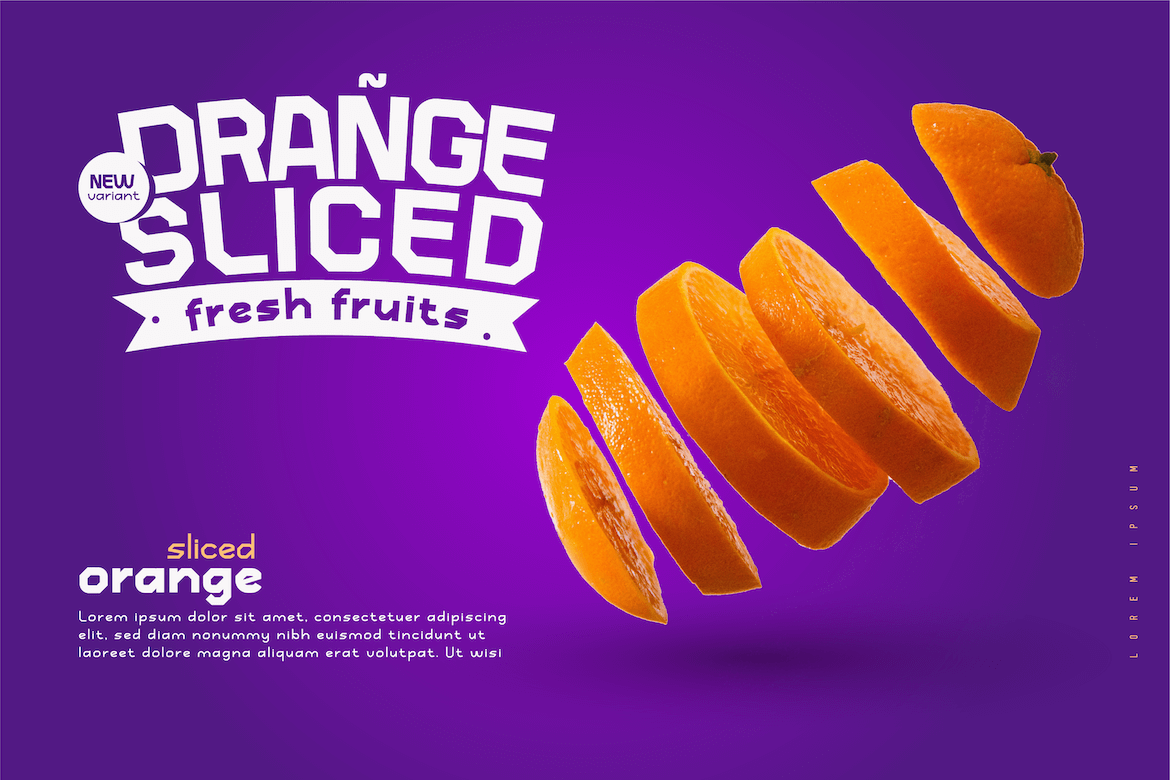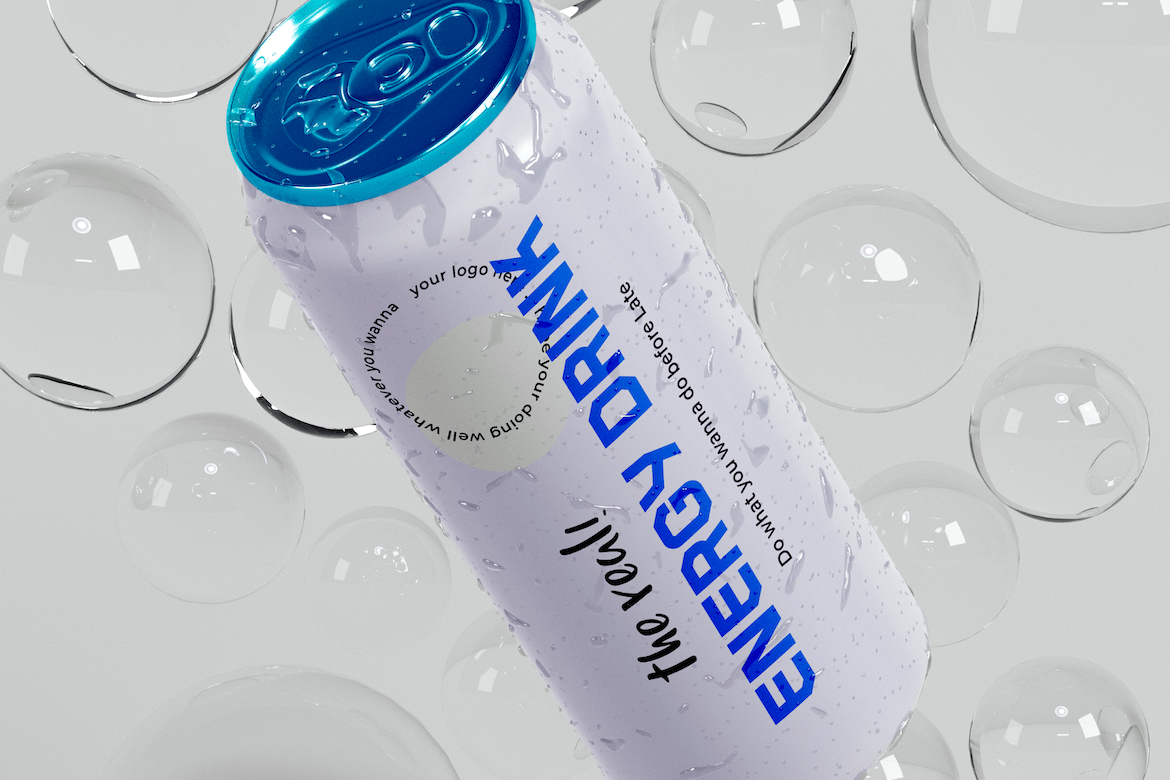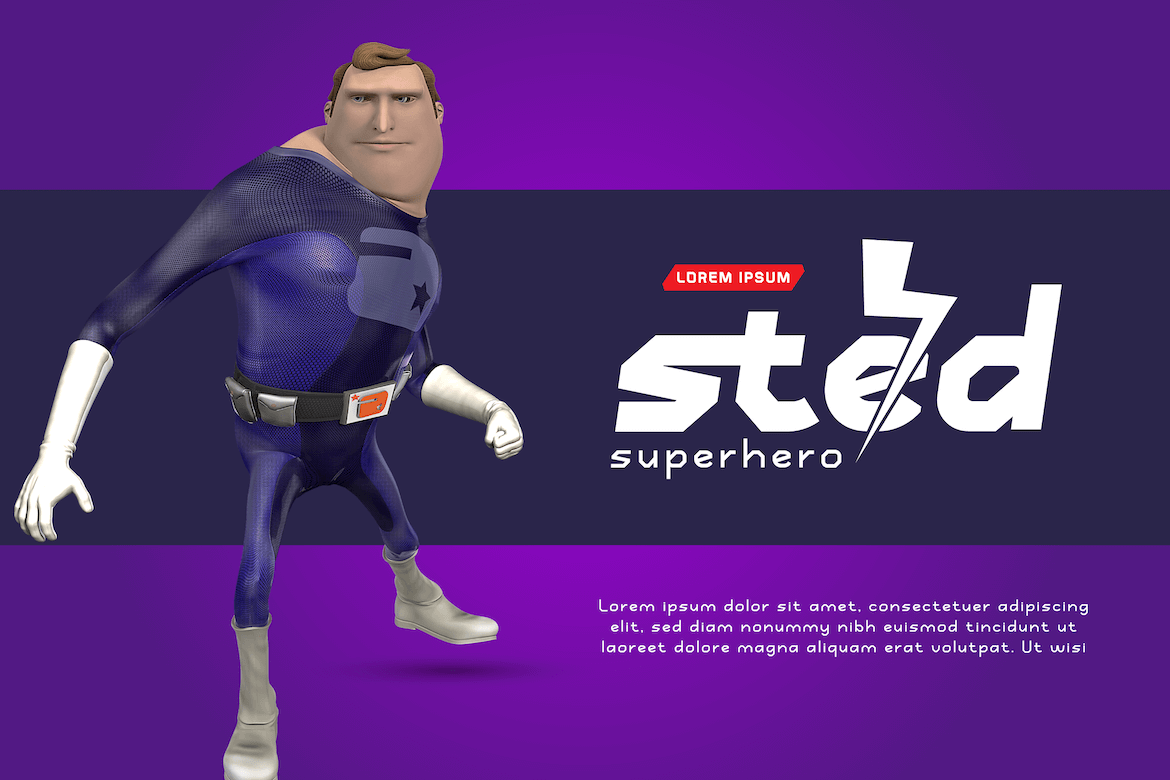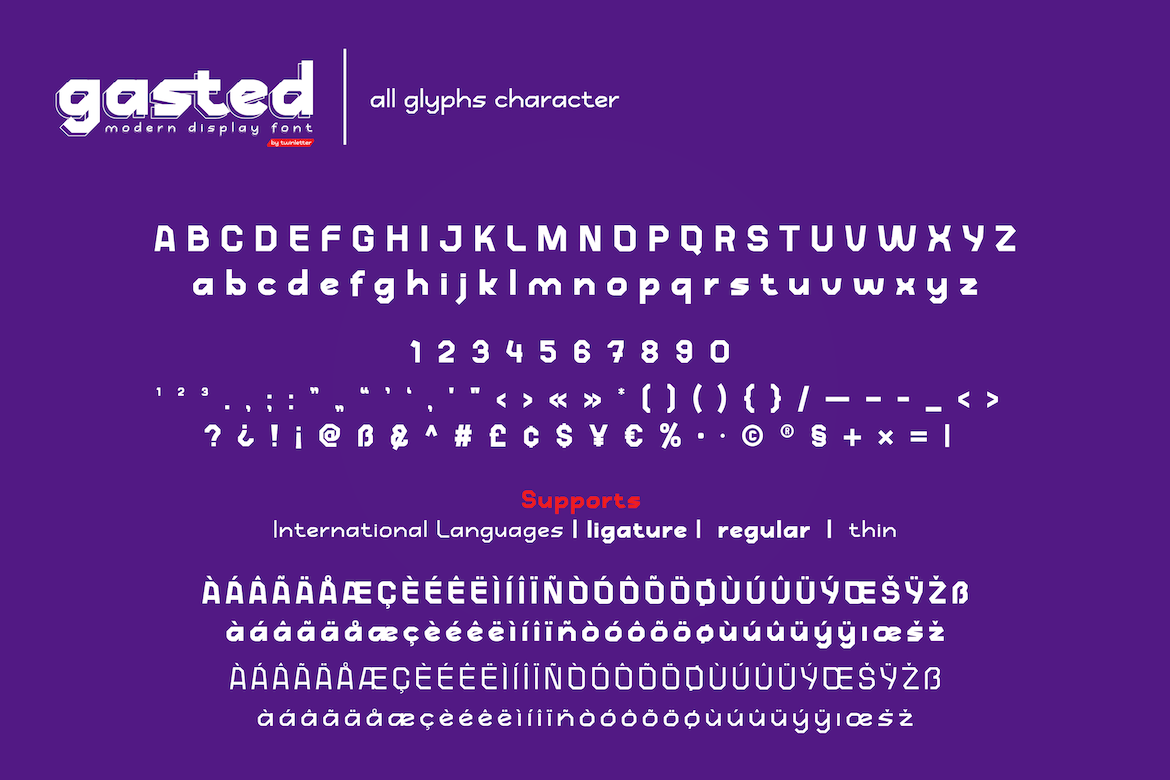
Gasted
introduce Gasted font, designed by combining heroism in written artwork, modern fonts for digital and robotic needs, of course, this very elegant and powerful san serif font family, will make your project unique and attractive in its presentation. what are you waiting for, start making your project spectacular
This font is perfect for games, sporting events, branding, banners, posters, movie titles, book titles, quotes, clothing, logotypes, and more.
of course, your various design projects will be perfect and extraordinary if you use this font because this font is equipped with a complimentary font family, both for titles and subtitles and sentence text.